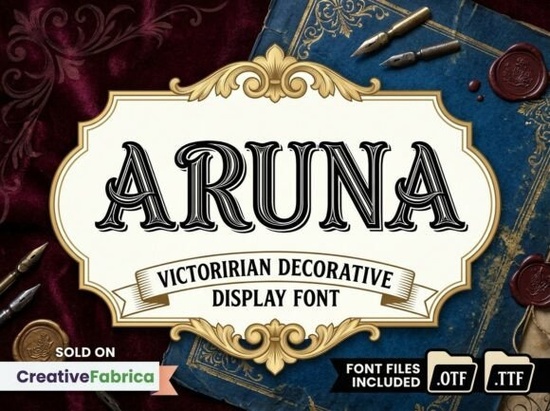
Looking for a font that brings a sense of history and elegance to your designs? The Aruna Font is a standout choice for anyone looking to add a touch of timeless sophistication. With its unique blend of vintage charm and modern appeal, Aruna is perfect for a variety of creative projects. Whether you're designing a logo, creating stationery, or working on a branding project, this font can help you make a lasting impression.
One of the key features of Aruna is its high-contrast letterforms, which give it a dramatic and refined look. The font also includes hand-drawn textures and swirling swashes that add a level of detail and artistry. These elements combine to create a style that feels both classic and contemporary. If you're interested in other fonts with similar characteristics, you might want to explore Blazter Font, Birch Font, or Shark Font.
For those who appreciate the beauty of traditional typography, Aruna offers a refreshing alternative to more standard fonts. Its design is ideal for projects that require a sense of prestige and authority. This makes it a great option for independent distilleries, boutique shops, and artisanal businesses looking to establish a strong visual identity. If you're looking for more fonts in this category, you might find Paulette Font or Aruna Font useful.
When choosing a font, it's important to consider how it will fit into your overall design. Aruna is particularly well-suited for display purposes, such as headings, logos, and social media graphics. Its bold structure and intricate details make it stand out without overwhelming the viewer. For example, if you're creating a header for a website or a promotional post, Aruna can add a level of visual interest that other fonts might not provide.
If you're new to using decorative fonts, you might want to start by experimenting with different styles and layouts. Try pairing Aruna with simpler fonts to balance the design and ensure readability. You can also look for inspiration from other designers who use similar fonts in their work. For more examples, check out Aruna Font on Creative Fabrica.
Another benefit of using Aruna is its versatility across different mediums. Whether you're working on digital projects or print materials, this font maintains its quality and clarity. It works well in both large and small sizes, making it suitable for a wide range of applications. If you're planning to use it for a business logo, product label, or any other branded material, Aruna can help you achieve a professional and polished look.
When selecting a font for your project, it's also helpful to think about the message you want to convey. Aruna's vintage-inspired design can evoke a sense of tradition and craftsmanship, which can be especially appealing for niche markets or heritage brands. If you're targeting an audience that values quality and authenticity, this font can be a valuable tool in your design arsenal.
Whether you're a designer, crafter, or small business owner, Aruna Font offers a unique and compelling option for your creative projects. Its combination of historical influence and modern design makes it a versatile and attractive choice. By incorporating this font into your work, you can add a level of sophistication that sets your designs apart.
- Use the font for display purposes where its details can shine.